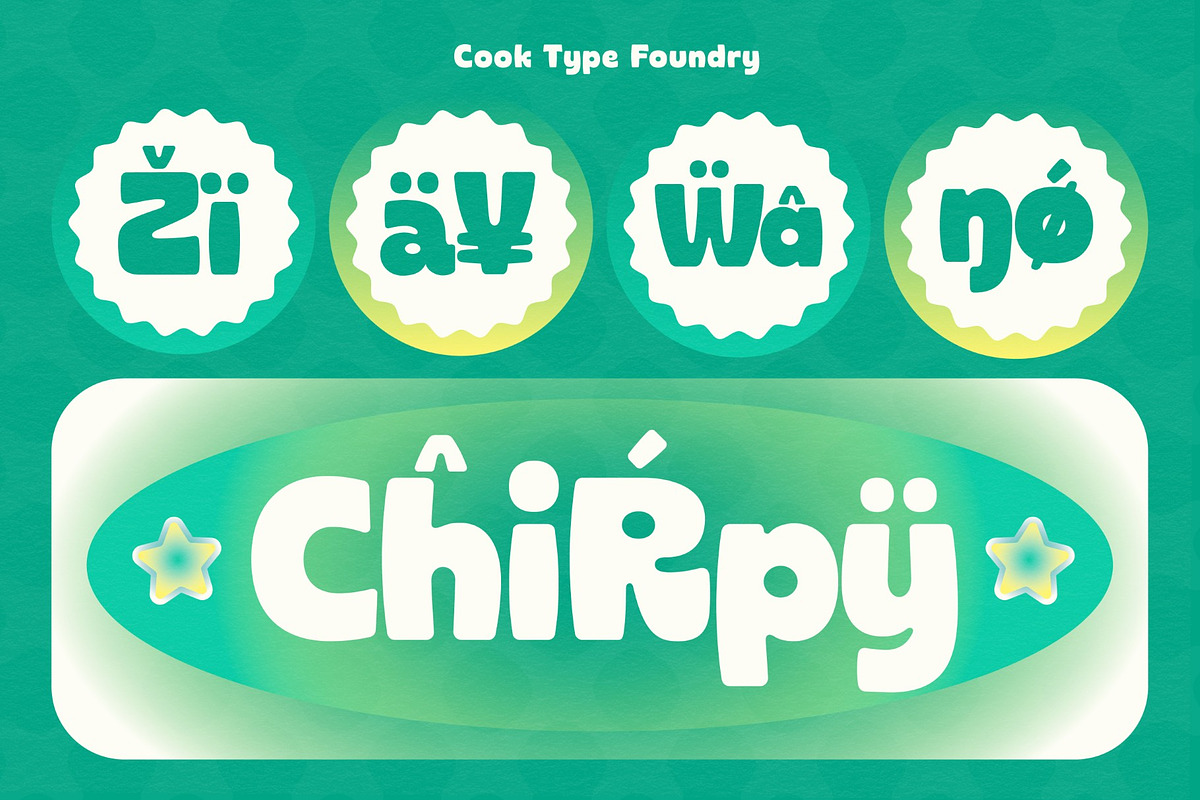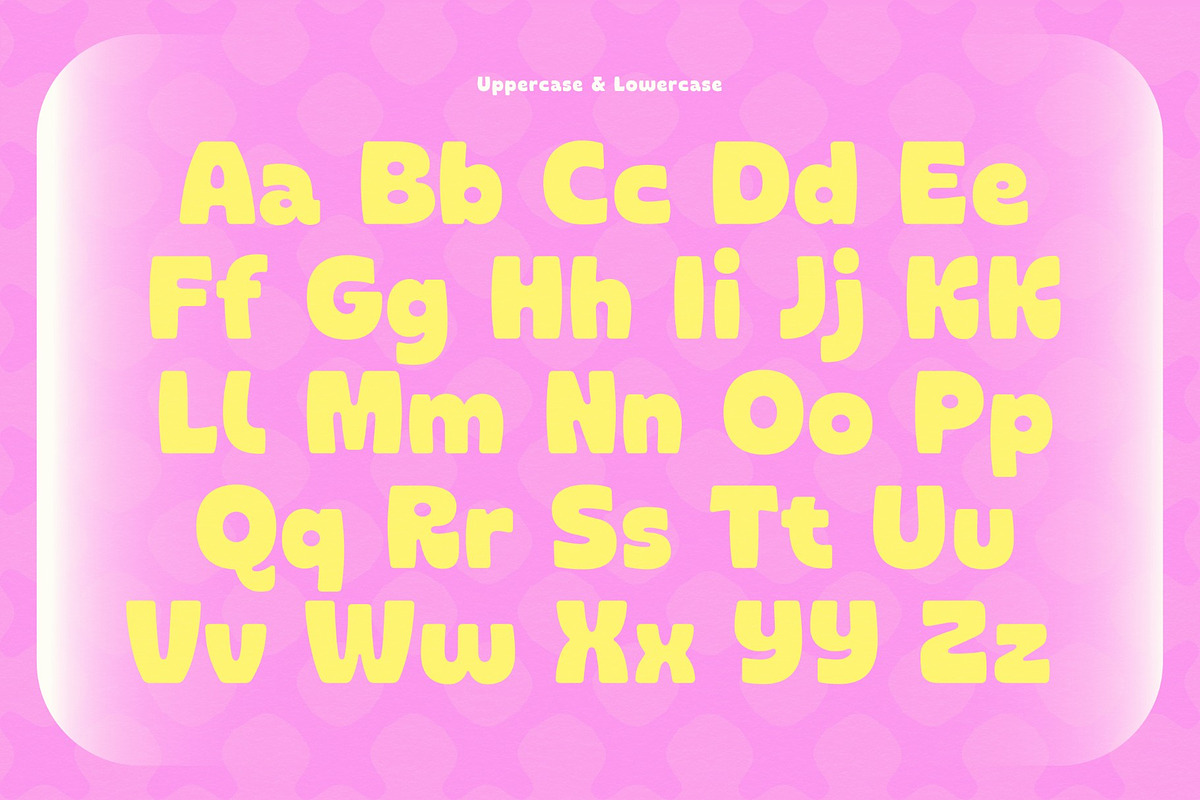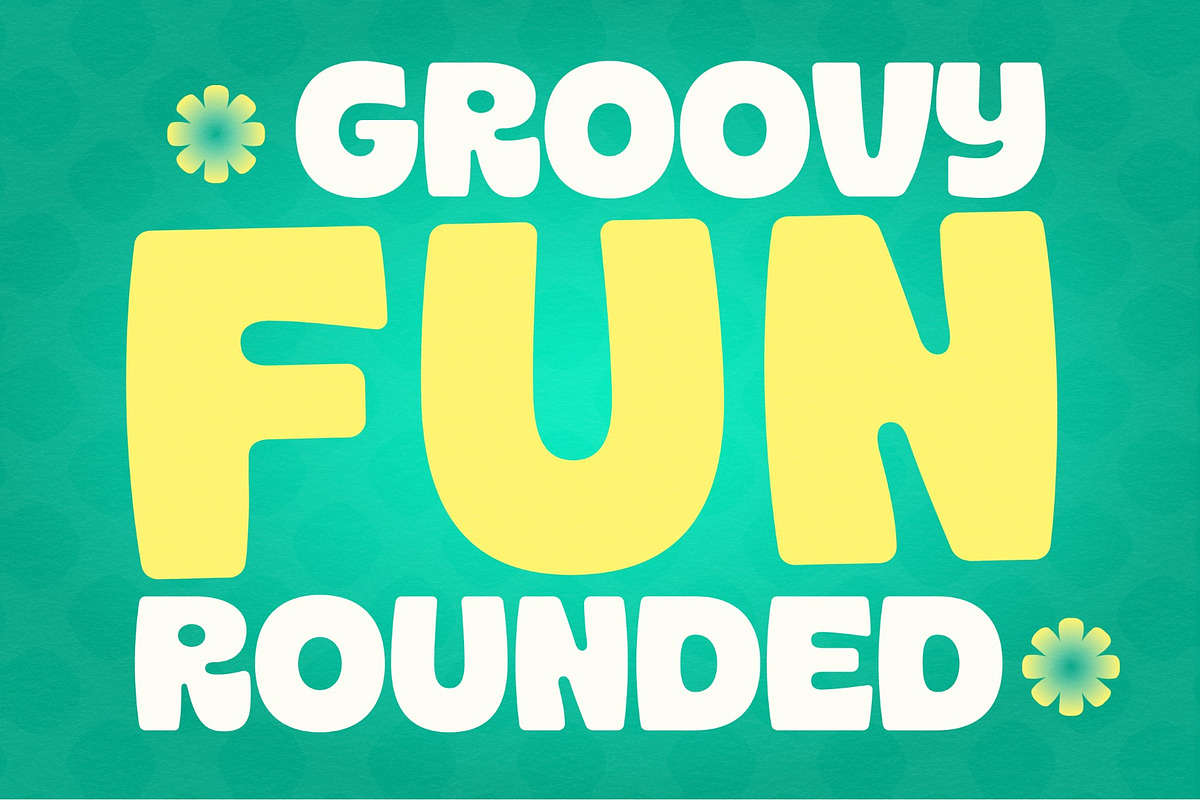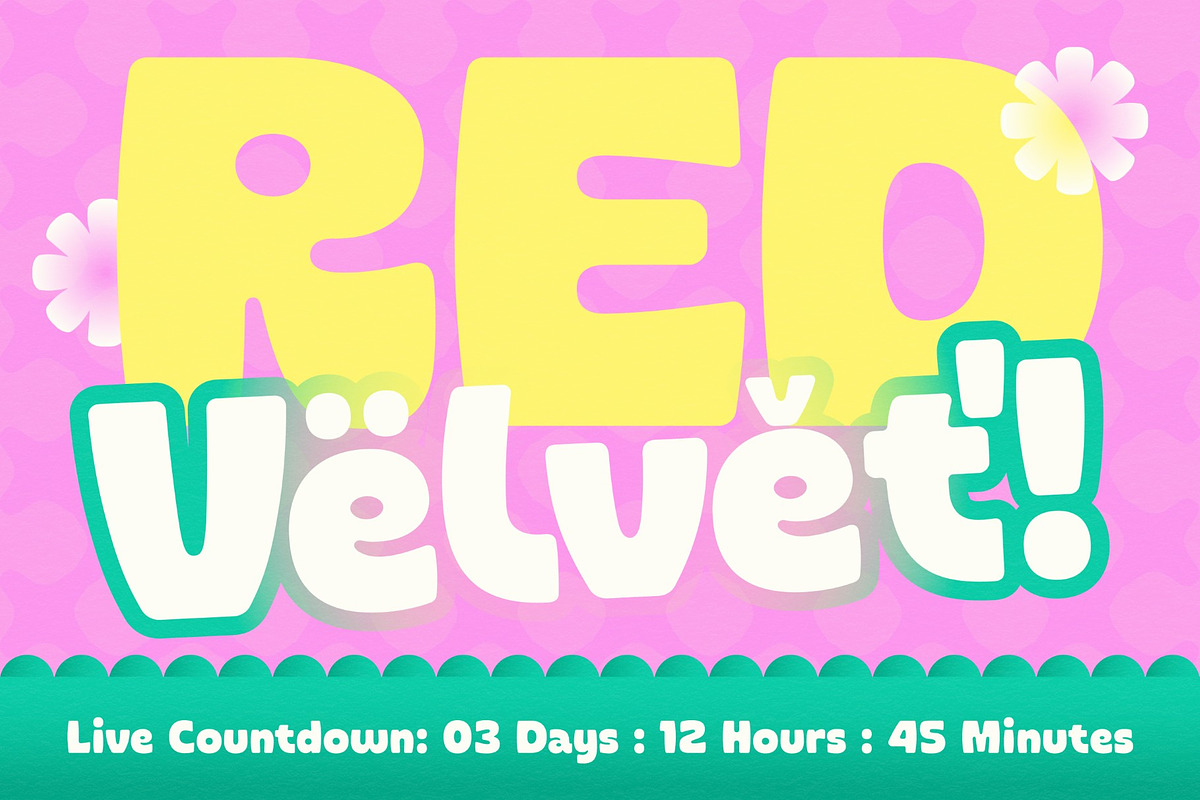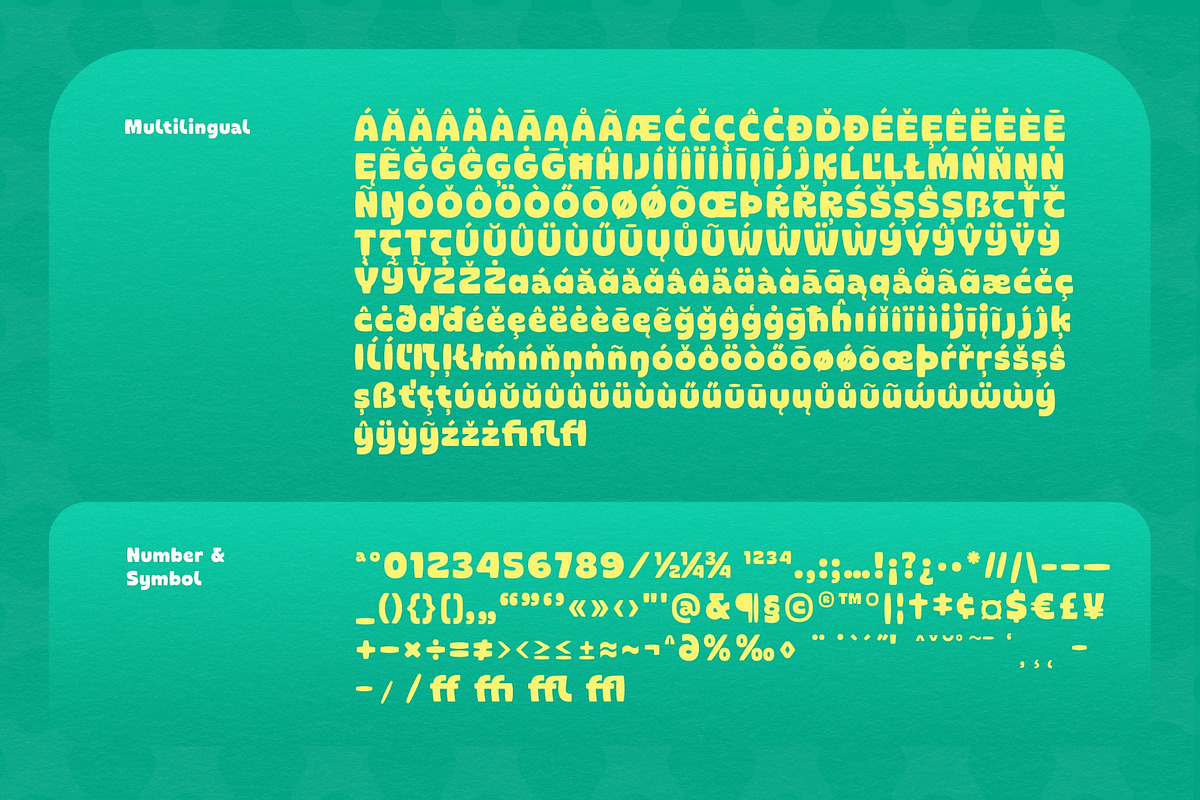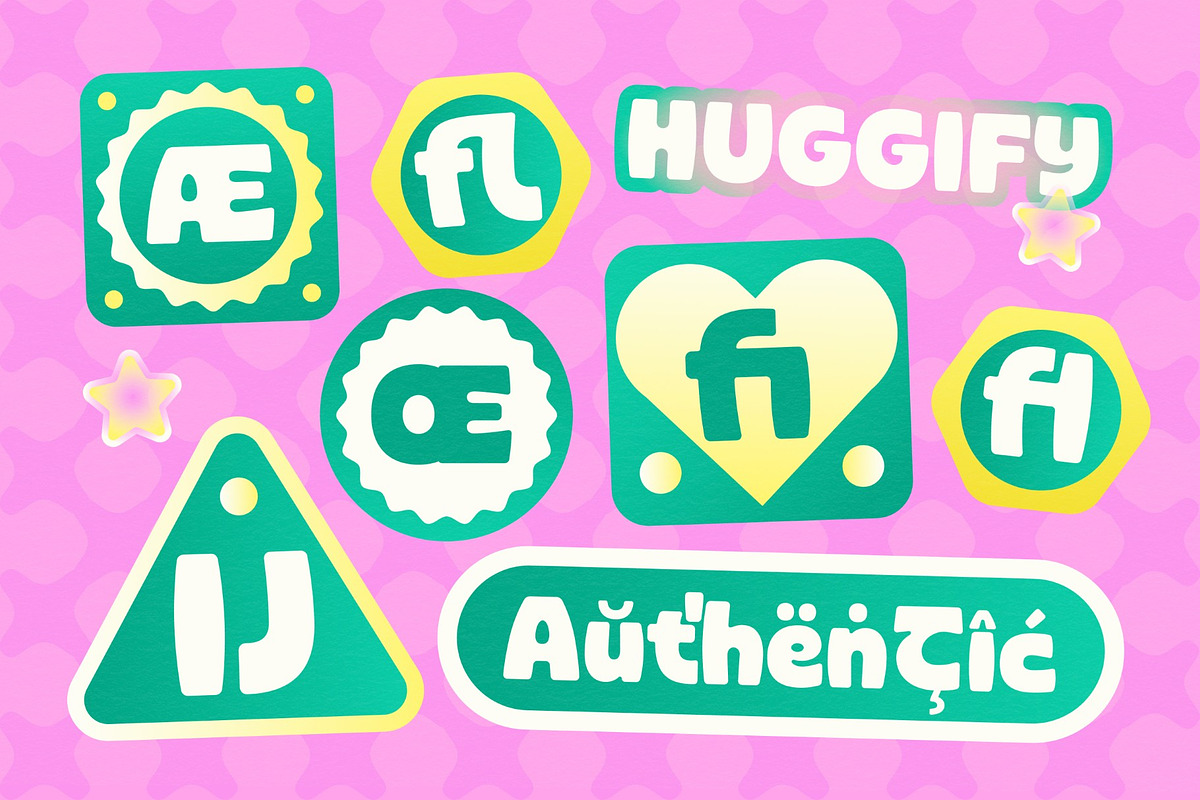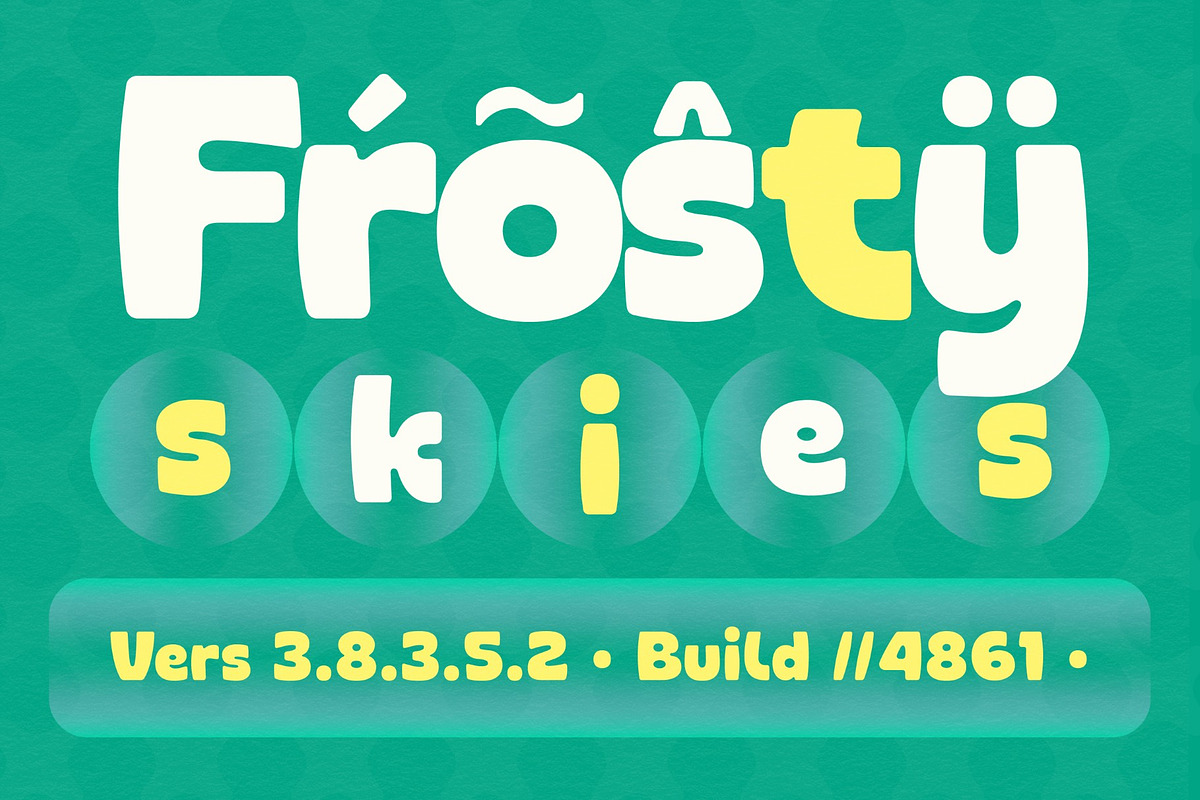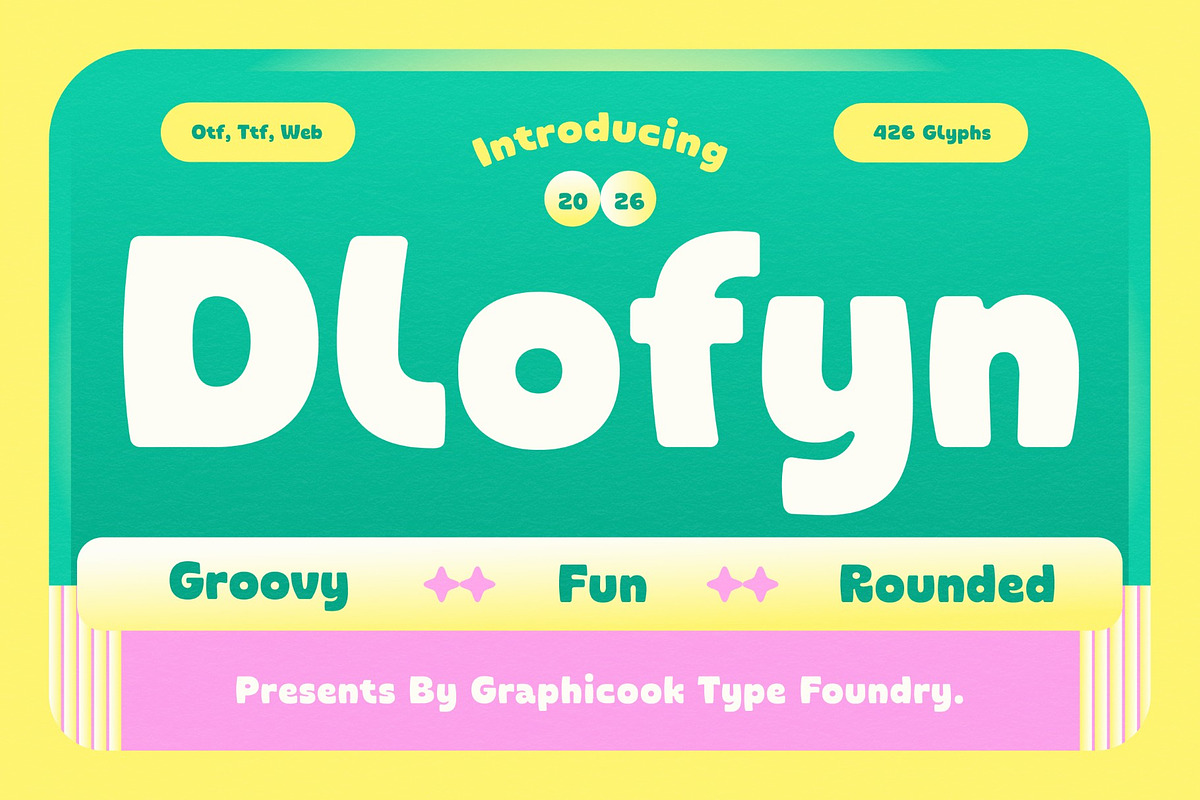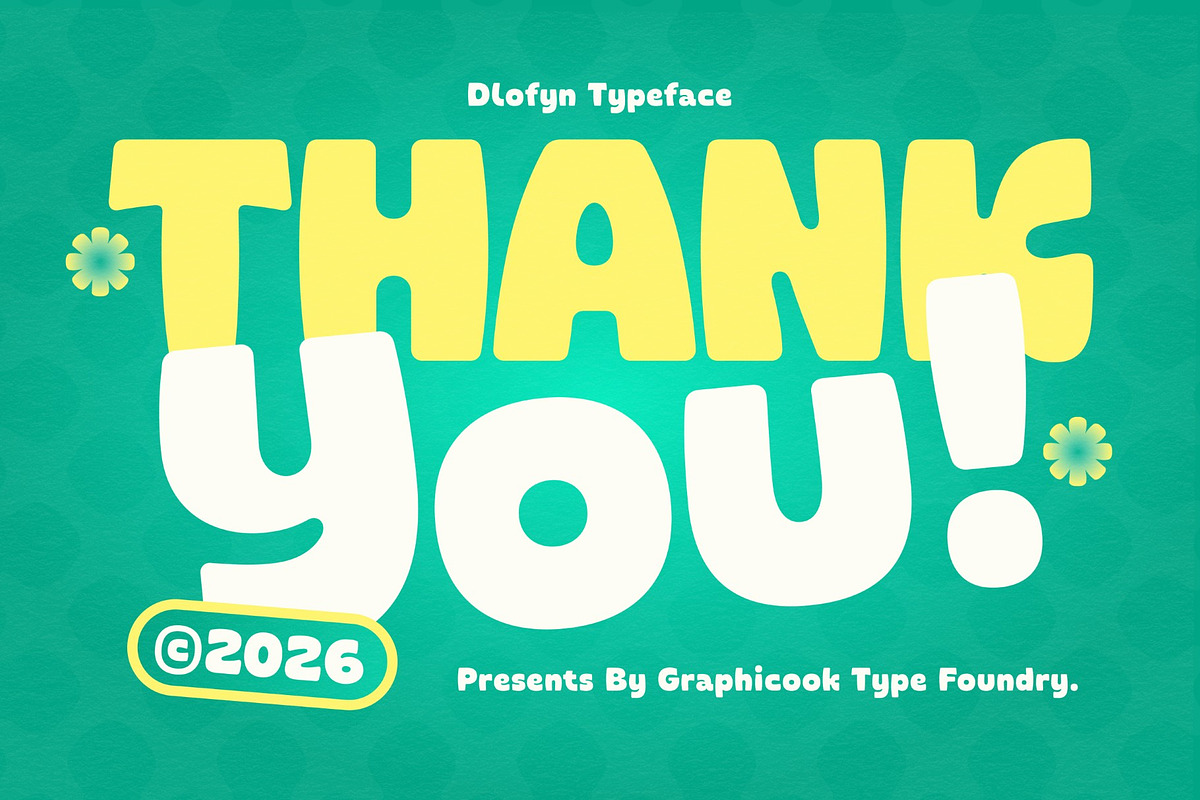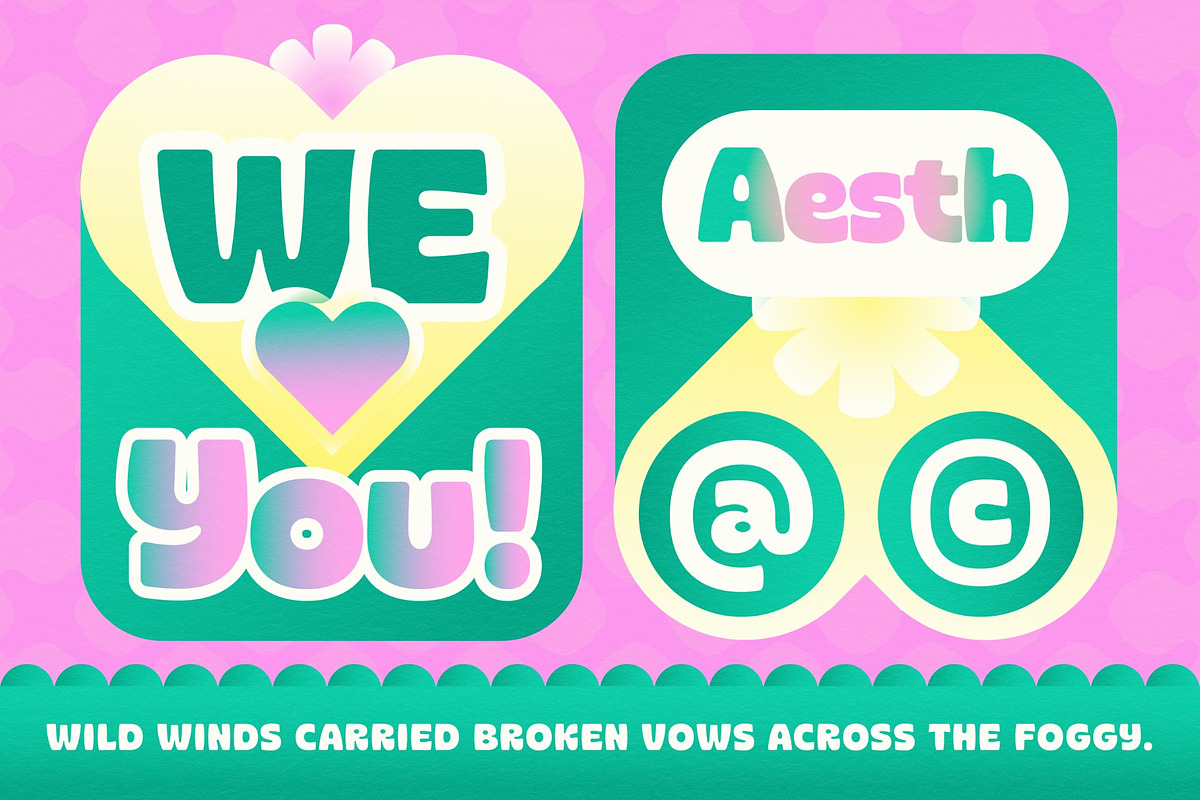
Dlofyn
Dlofyn is a bold and playful display typeface designed to bring instant joy and personality to any creative project. Featuring chunky, rounded letterforms with soft curves and an expressive silhouette, it delivers a fun, groovy, and modern look. Dlofyn turns every word into a bold statement full of fun and positive energy.
It is perfect for headlines, logotypes, magazines, packaging, quotes, movies, games, cover albums, book covers, and flyers, it's a perfect solution for creating eye-catching designs that stand out in any context.